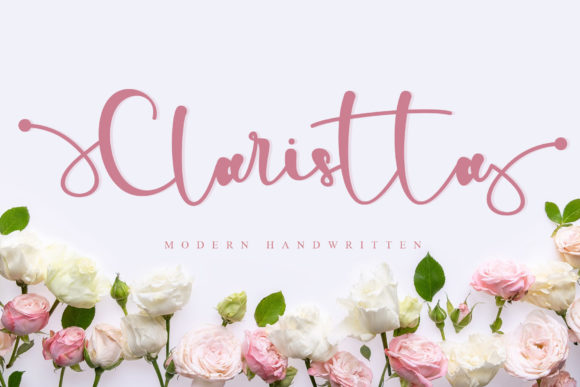
About Claristta Font
Claristta is a stunning and ravishing script font that showcases impeccable craftsmanship and intricate details. With its elegant and sophisticated design, this font adds a touch of refinement to any project.
The neat and meticulous construction of Claristta ensures that every letter is perfectly formed, resulting in a visually pleasing and harmonious typeface. The high level of detail and attention to each curve and stroke make this font truly captivating.
One of the standout features of Claristta is its PUA encoding, which allows for easy access to all the glyphs and swashes. This means that you have the flexibility to experiment and customize your typography, adding additional flair and personality to your designs. The wide range of alternates and swashes provides endless possibilities for creating unique and eye-catching compositions.
Claristta’s versatility makes it suitable for various purposes, including logos, branding, invitations, stationery, and more. Its refined and elegant appearance adds a touch of sophistication to any project, elevating it to a higher level of visual impact.
Whether you’re working on a formal wedding invitation, a stylish logo, or a captivating social media post, Claristta is a font that will make a lasting impression. Its carefully crafted letterforms and graceful curves create a sense of elegance and refinement that draws the viewer’s attention.
In summary, Claristta is a ravishing script font that exudes elegance and attention to detail. With its neatly crafted design and PUA encoding, it offers easy access to a wide range of glyphs and swashes. Whether you’re aiming for a sophisticated logo or a refined invitation, Claristta will add a touch of beauty and charm to your designs.